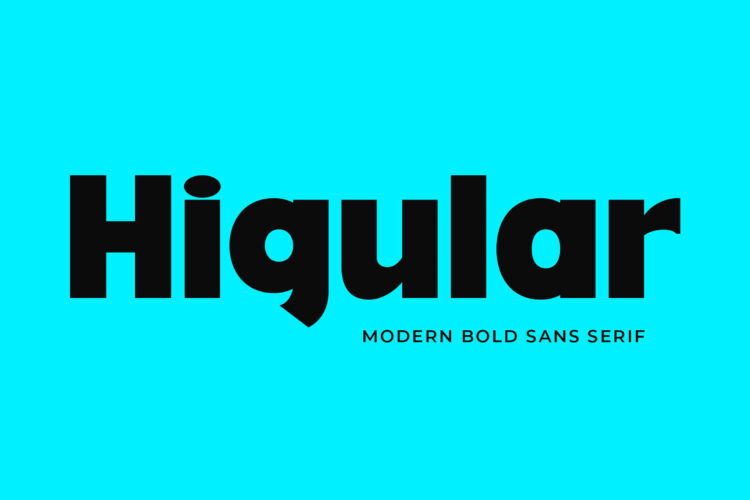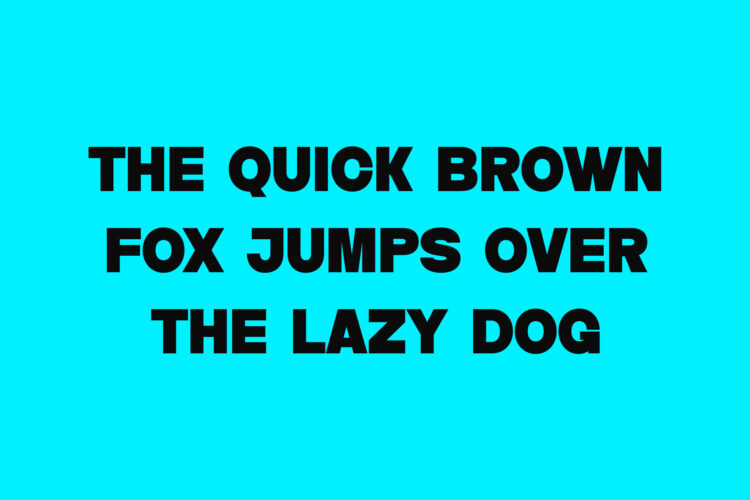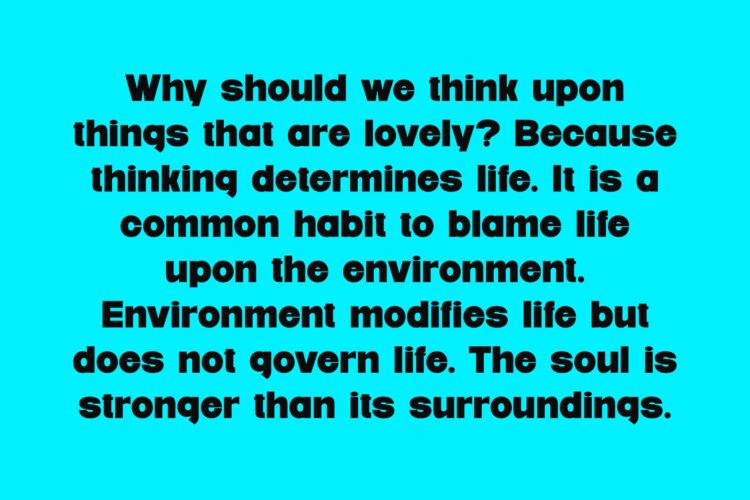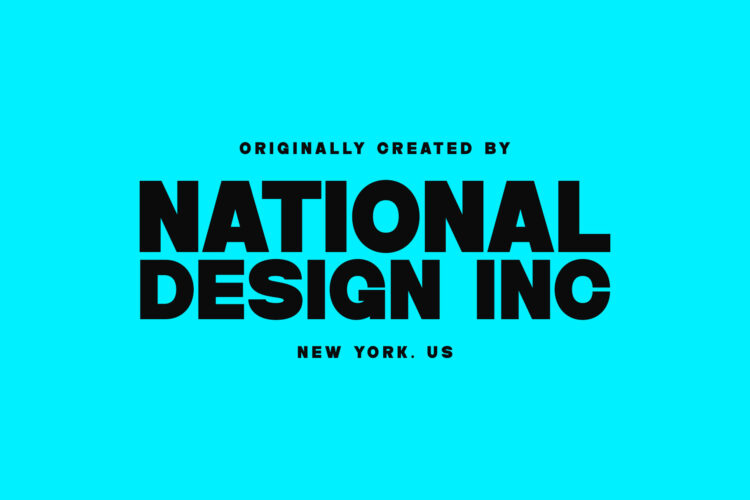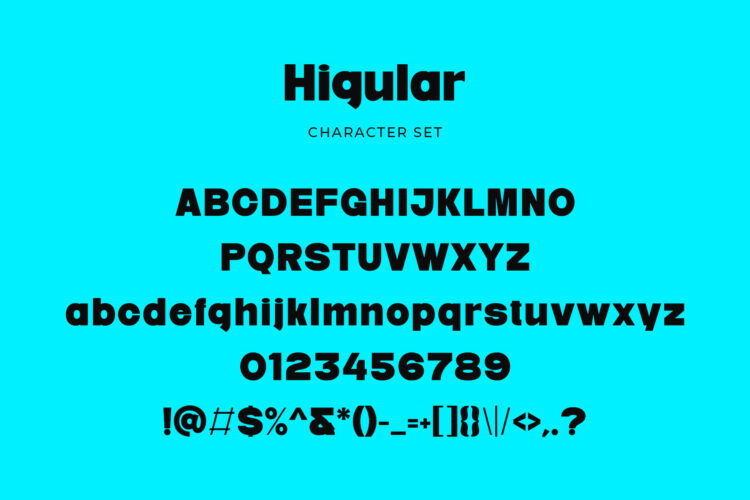
Introducing our new Higular, modern sans serif font with elegant style this is perfect for branding, logos, invitation, magazines, product packaging and more.
Higular – Modern Bold Sans Serif